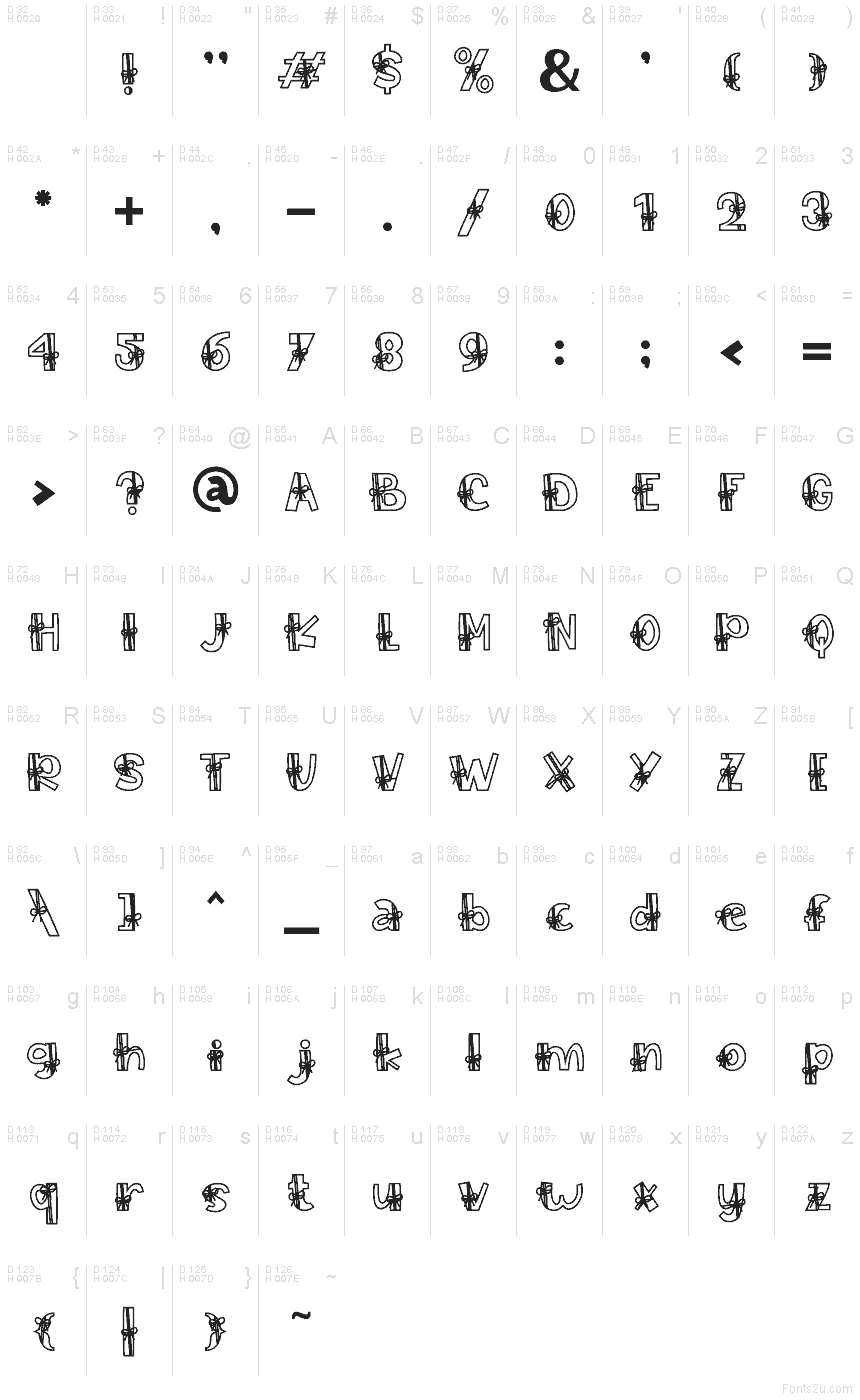
Frosty Faktur Gift
Frosty Faktur Gift font by PutraCetol Studio is a free Christmas decorative typeface that turns every word into a string of tiny presents. Each letter feels hand-doodled and wrapped, with sketchy outlines, playful bows, and a slightly wobbly rhythm that mimics marker on gift tags. The light, airy strokes keep it readable while still packed with festive detail, so it feels fun rather than cluttered.
Using Frosty Faktur Gift, you can instantly dress up holiday cards, party invitations, kids’ crafts, Advent calendars, and seasonal social posts. It also works beautifully for gift labels and store signage when you want that cozy, homemade wrapping vibe. Pair this free font with a clean sans serif for body text, and let Frosty Faktur Gift take center stage at larger sizes for headlines and short phrases.